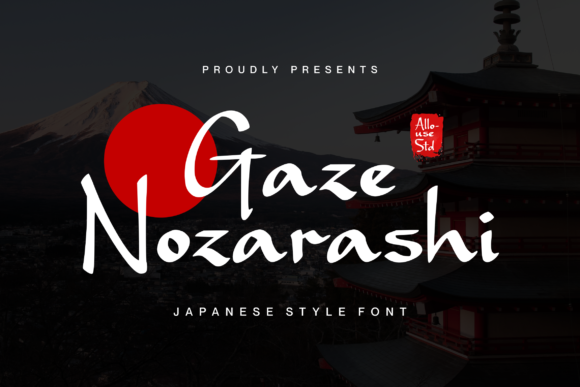
Unlocking the Magic of Japanese Style with Gaze Nozarashi Font
Remember that moment when you stumbled upon a beautiful, hand-painted sign in a quaint Tokyo alleyway? The delicate brushstrokes, the subtle color palette, and the way the characters danced together on the page – it was like a symphony of visual storytelling. For designers, this experience is a constant quest: to evoke emotions, create connections, and leave a lasting impression. And that’s exactly where the Gaze Nozarashi Font comes in – a stunning Japanese styled display font designed to elevate your visual language.
Perfect for product packaging, branding projects, magazine covers, social media, weddings, or simply adding a touch of elegance to your words above the background, the Gaze Nozarashi Font is a valuable addition to any designer’s toolkit. With its unique blend of traditional and modern elements, this font allows you to tap into the rich cultural heritage of Japan while infusing your work with a fresh, contemporary twist. Whether you’re a seasoned pro or just starting out, the Gaze Nozarashi Font is sure to inspire your creativity and help you create truly unforgettable designs.
Gaze Nozarashi Font Key Features
- Font Family: Gaze Nozarashi is a Japanese font designed for digital use, offering a unique blend of traditional and modern elements.
- Resolution: Designed for high-resolution displays, Gaze Nozarashi font looks sharp and clear at resolutions up to 300 DPI.
- Unique Characteristics: The font features a distinctive, hand-drawn feel with subtle texture and ink bleed effects, giving it a unique and artistic appearance.
- Language Support: Gaze Nozarashi font supports a wide range of languages, including Japanese, English, and many other languages that use the Latin and Cyrillic alphabets.
Gaze Nozarashi Font Review
I recently had the chance to work with the Gaze Nozarashi font, and overall, I have mixed feelings about it. ✨ One thing I appreciate is its unique, hand-painted look. The font is perfect for projects that require a personal touch or a vintage feel. The subtle texture and imperfections give it a human, almost handmade quality.
Another aspect that works well is its versatility. ✨ The font comes in multiple weights, from light to bold, which makes it suitable for various applications, from body text to headings. Additionally, the font’s high x-height makes it readable even at smaller font sizes.
However, there are some limitations to consider. ⚠️ The font may not be suitable for projects that require a high level of precision or technical look. The irregularities in the font can make it challenging to read, especially in larger blocks of text. Additionally, the font’s texture can be overwhelming if used extensively.
In conclusion, the Gaze Nozarashi font is a great choice for projects that require a unique, personal touch. However, it may not be the best option for more technical or formal projects. Overall, I’d give it 3.5 out of 5 stars.
- Unique, hand-painted look
- Versatile, suitable for various applications
- High x-height for readability
- May not be suitable for technical or formal projects
- Irregularities can make it challenging to read in larger blocks
The Gaze Nozarashi Font is ideal for:
- Creating elegant and sophisticated designs.
- Adding a touch of Japanese culture to your design.
- Using as a title or heading font.
Yes, Gaze Nozarashi supports multiple languages, including Latin, Cyrillic, and other languages that use the Latin alphabet. However, it is primarily designed for Japanese language support and may not include the full range of characters for non-Japanese languages.